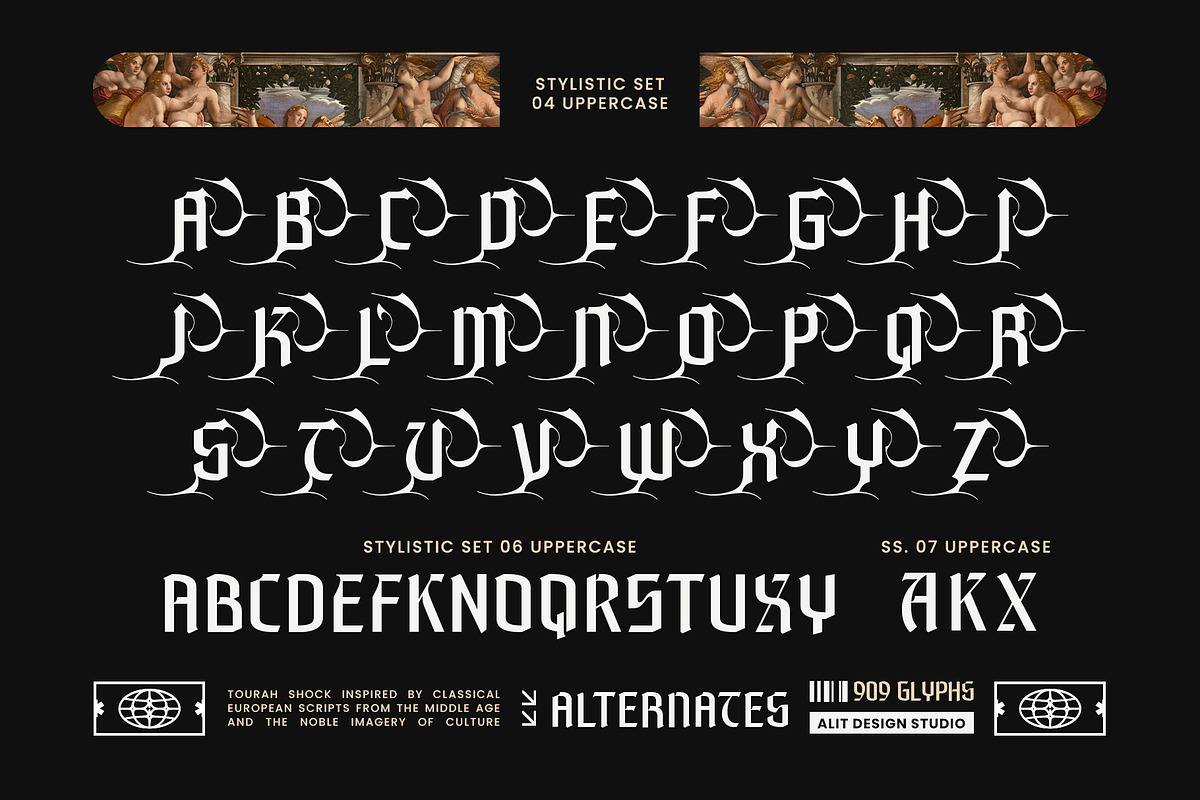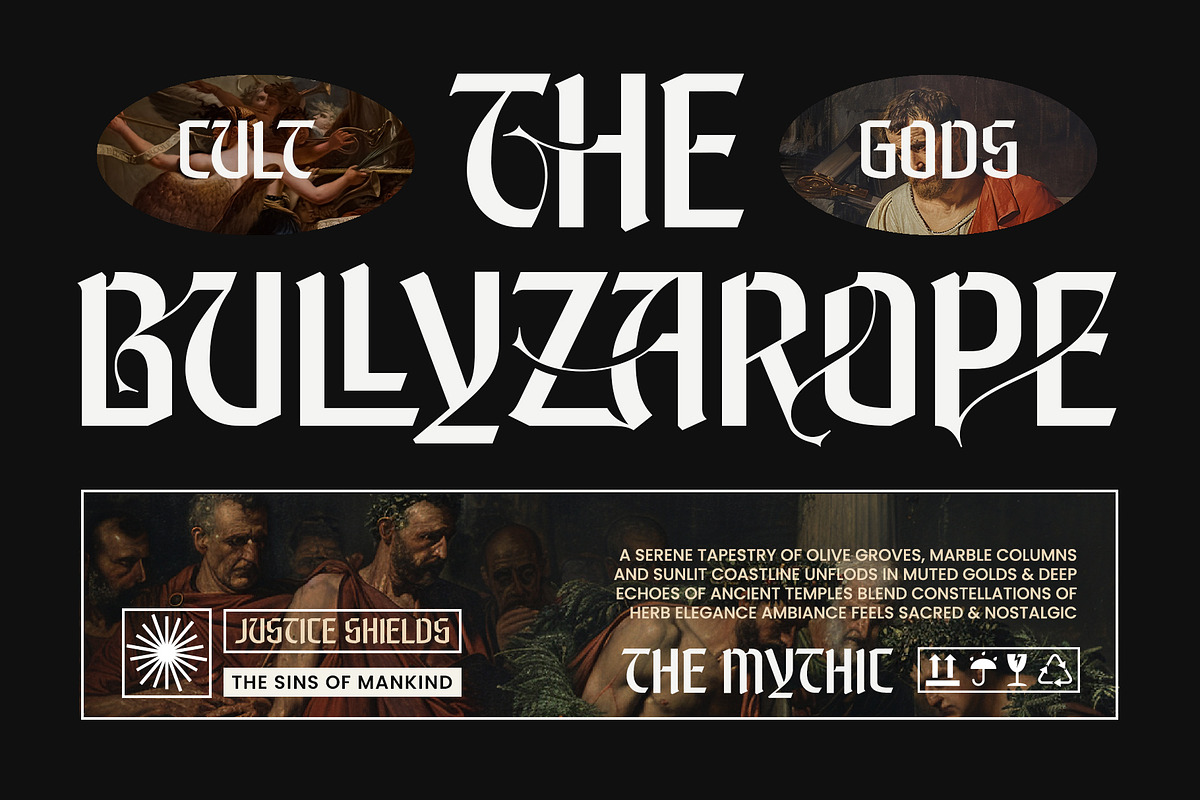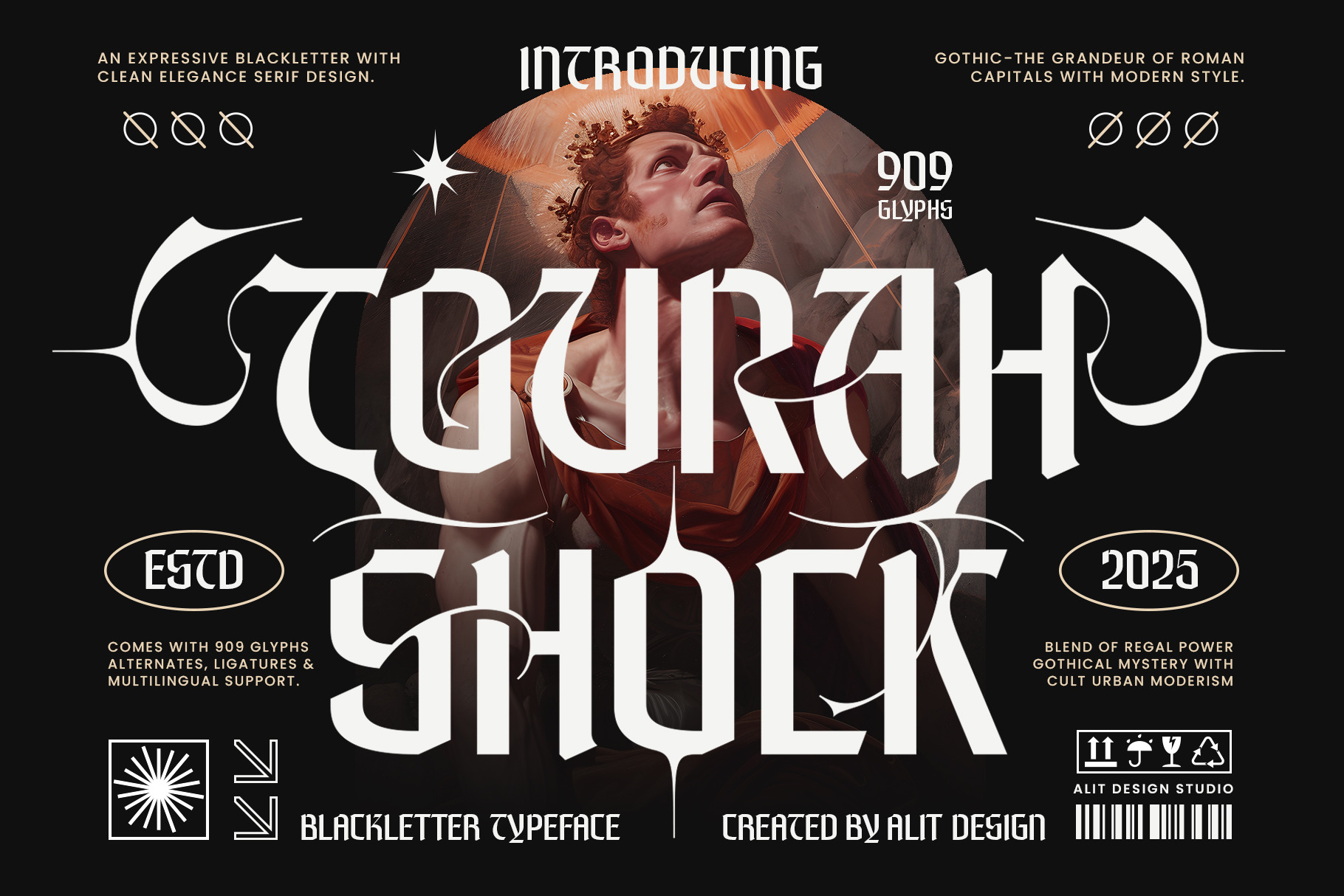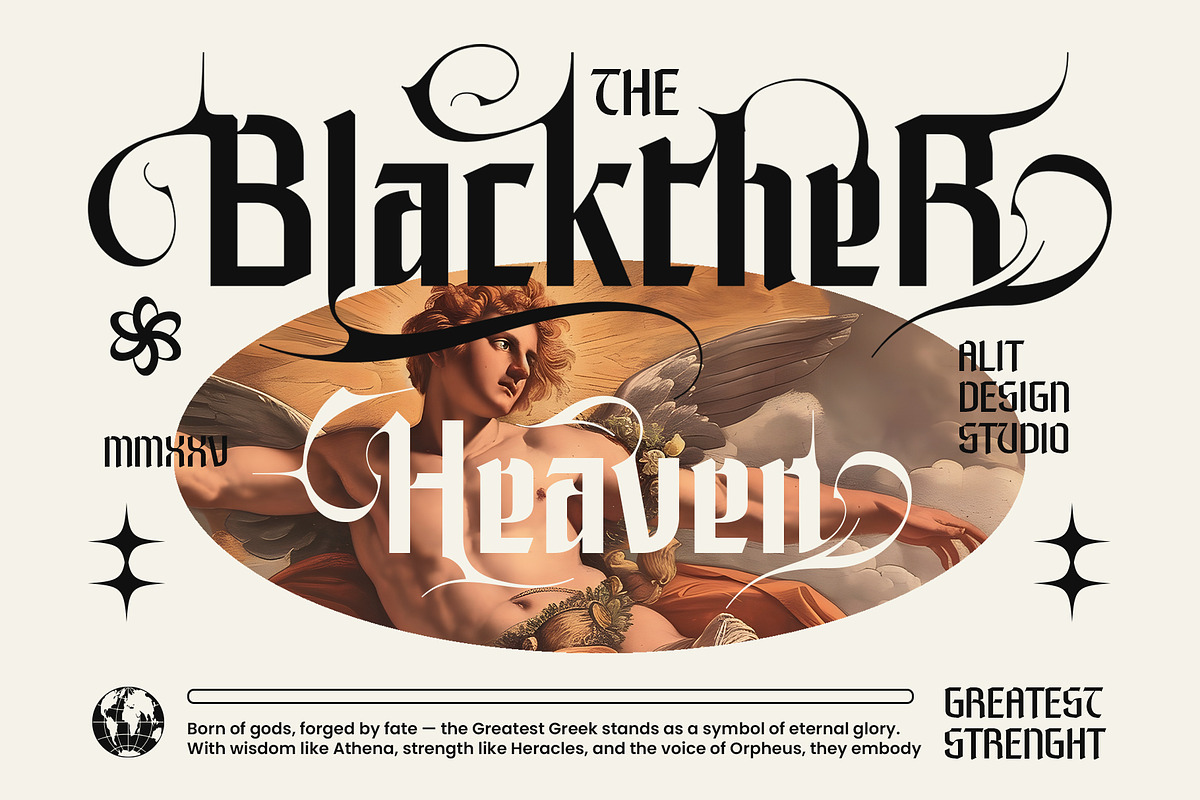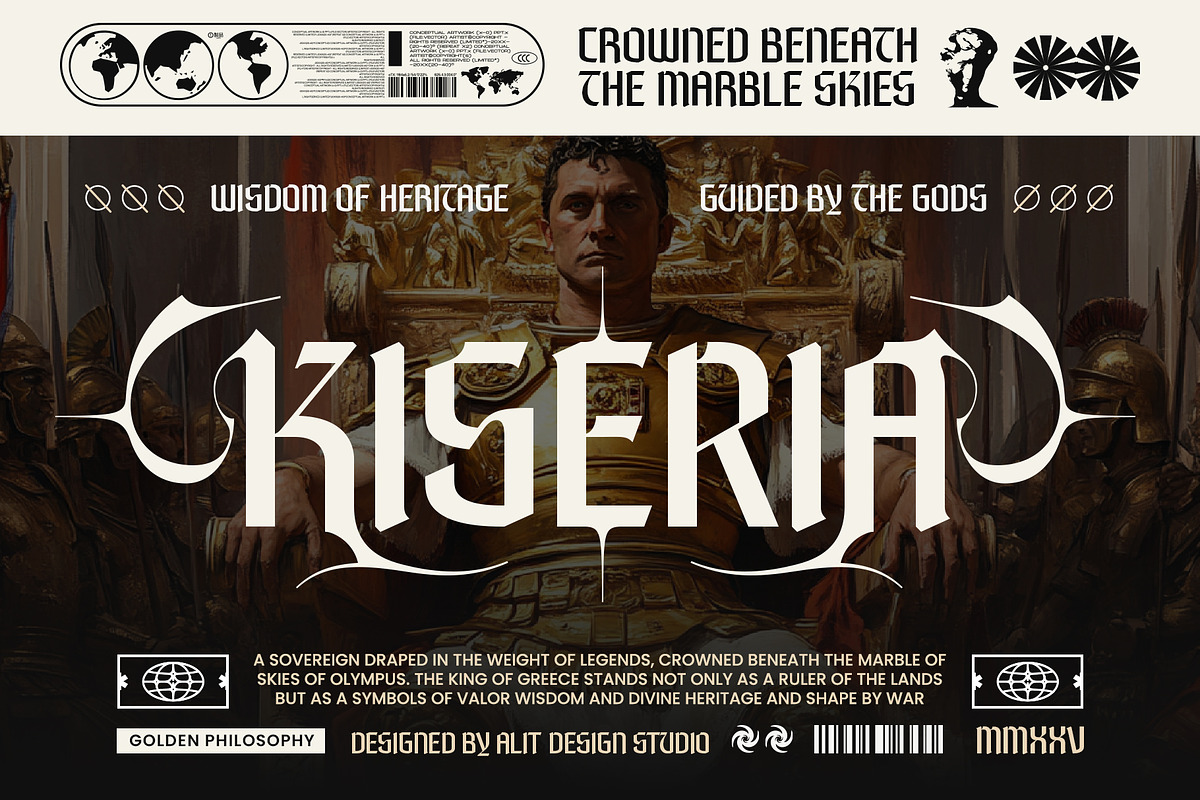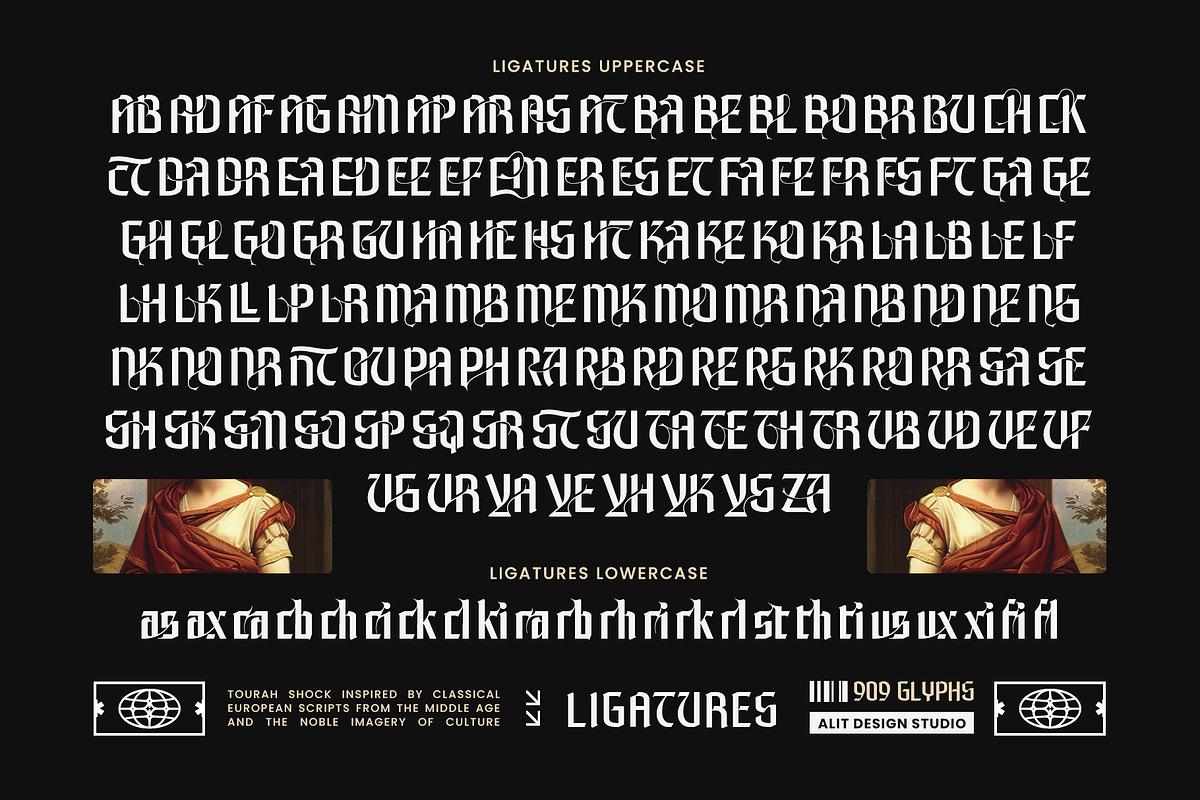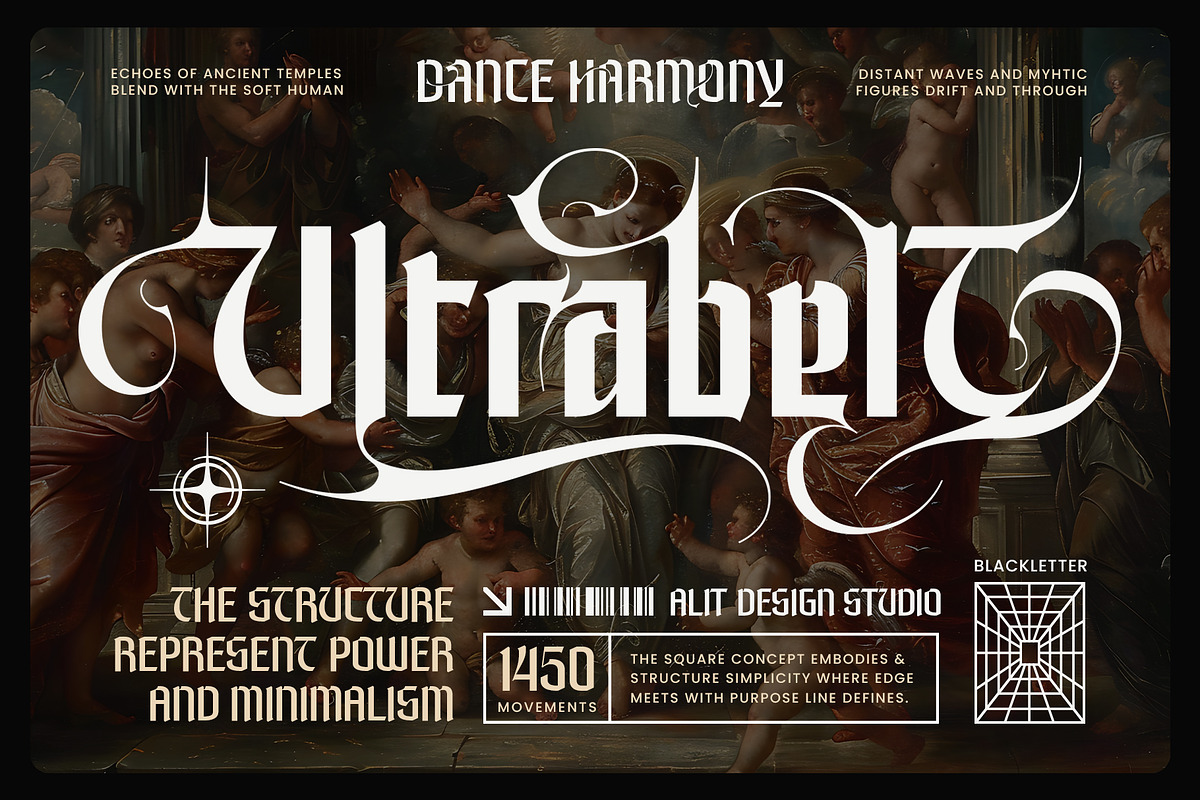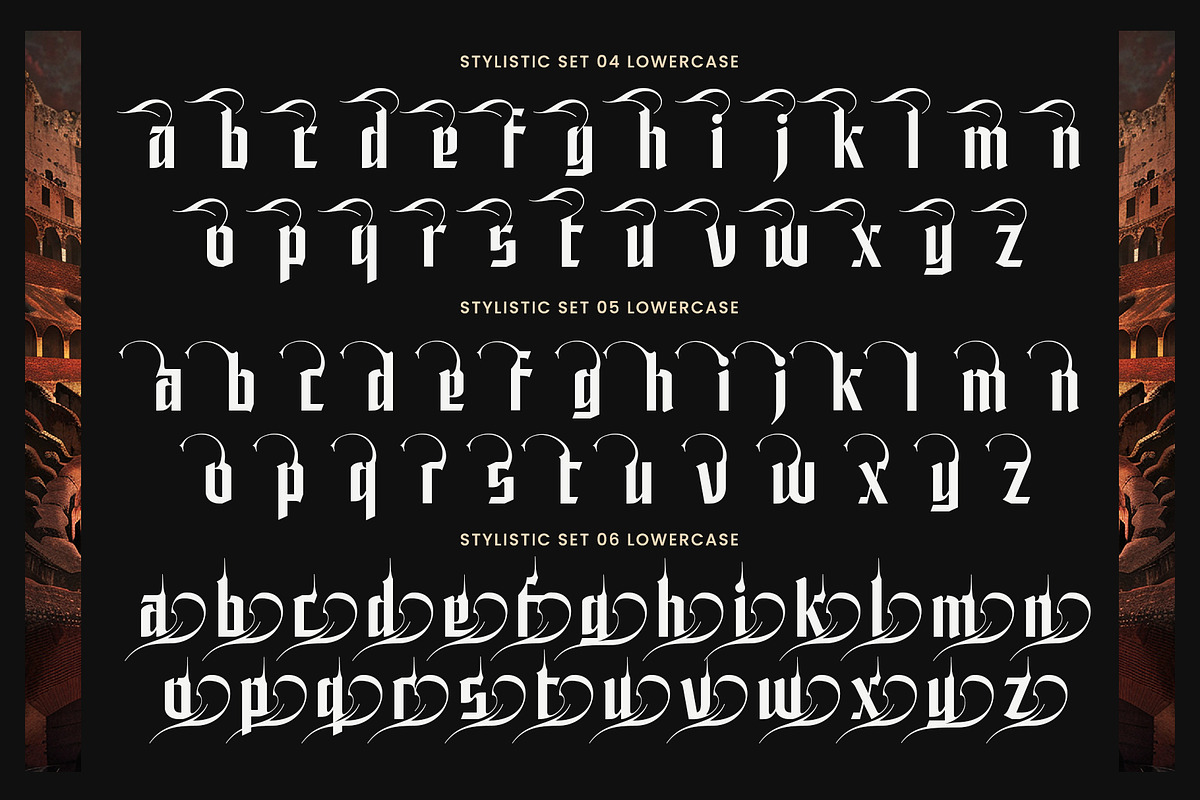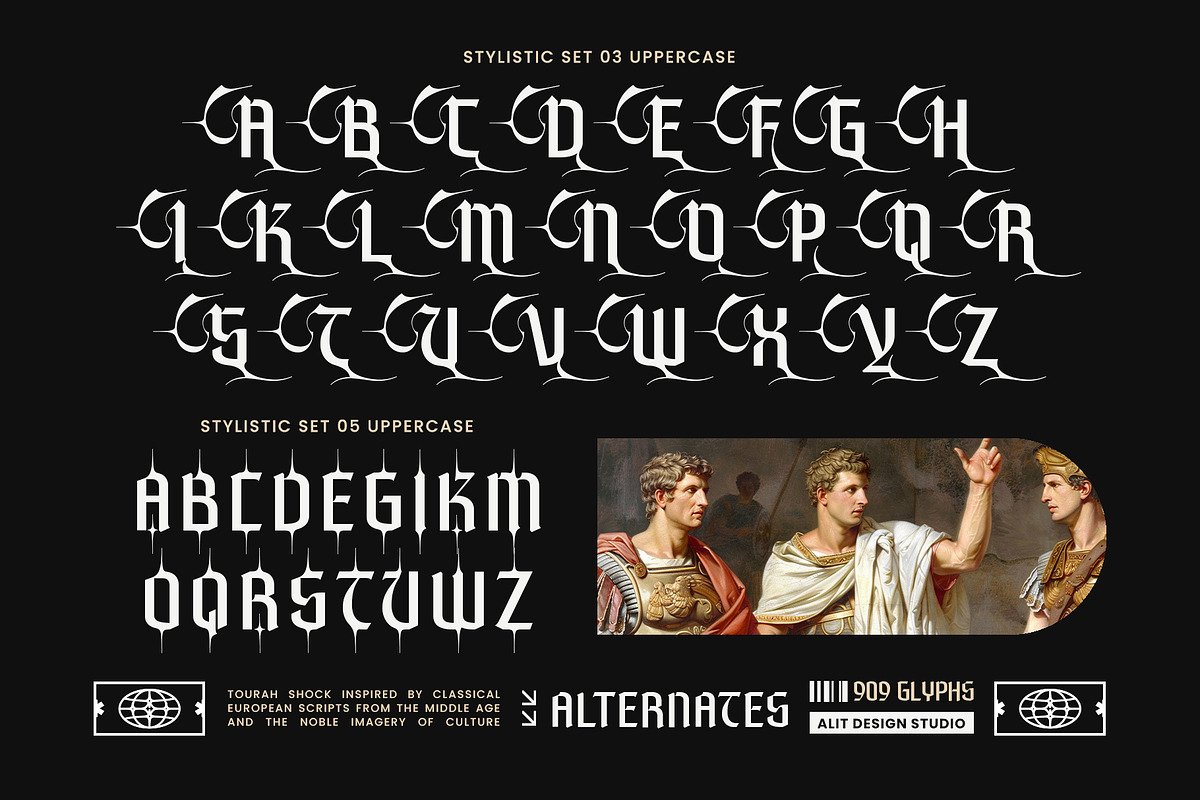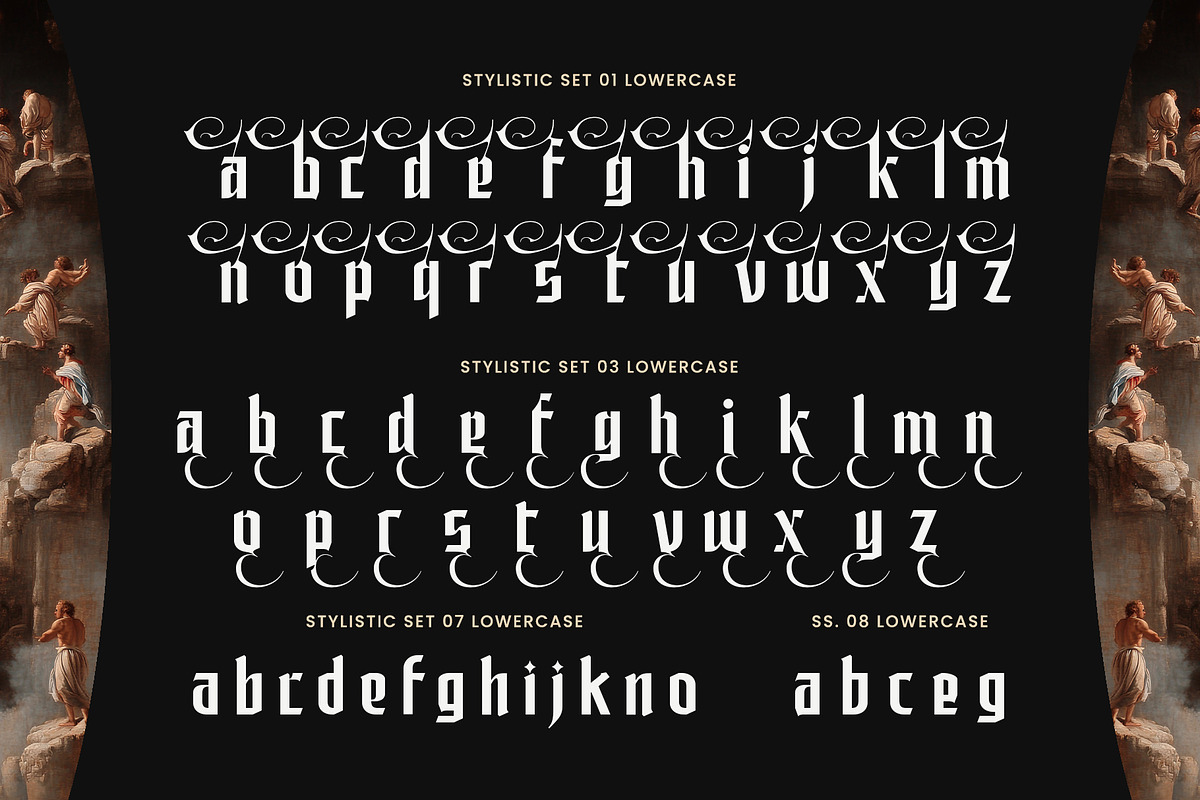
Tourah Shock Typeface
Where Blackletter Heritage Meets Modern Urban Power
Step into the bold world of Tourah Shock Typeface – a fearless fusion of blackletter tradition, elegant serif structure, and tribal artistry. Crafted for designers who crave impact, emotion, and edge, Tourah Shock is more than a typeface — it’s a visual force of dark elegance and structured defiance.
🔥 Design Concept
Tourah Shock was born from the tension between ancient and future, between classical grandeur and contemporary rebellion. It draws deep inspiration from Gothic Roman capitals, urban cult symbolism, and ceremonial tribal aesthetics, combining them into a modern typographic weapon.
The letterforms carry sharp terminals, high contrast strokes, and ornamental extensions that feel both ceremonial and futuristic. Accents and alternates curve like ancient sigils, giving each word an otherworldly gravitas, perfect for cinematic, fashion, or music-centric design.
909 glyphs including:
- Uppercase & lowercase characters
- Extensive ligatures and alternates for stylized combinations
- Multilingual support (Latin-based languages)
- Punctuation and symbols
- Stylistic mix of blackletter spikes, modern serifs, and tribal swashes
- Carefully balanced for display use, from posters to packaging to titles
🖤 Best For
Tourah Shock excels in projects that demand emotive storytelling, darkness, and strength:
- Album covers (metal, electronic, darkwave, hip hop)
- Fashion branding and high-end editorial spreads
- Game titles, fantasy books, film posters
- Ritualistic branding, tattoos, gothic subcultures
- Luxury streetwear, mystic packaging, esoteric products
🧩 Character of the Typeface
- Bold & ornamental with precise serif structure
- Expressive & mystical with gothic and tribal influences
- Urban & regal — ideal for designs where old-world formality meets modern attitude